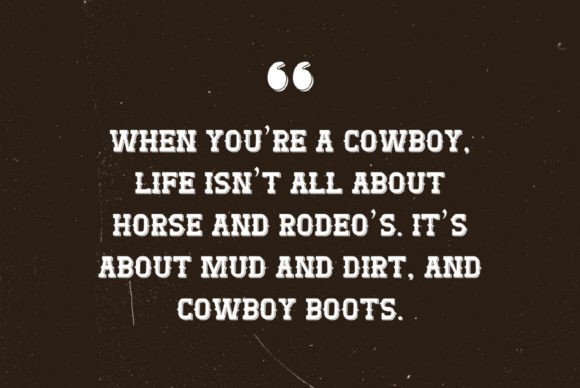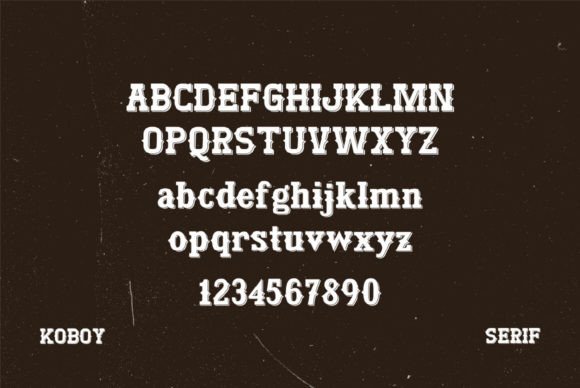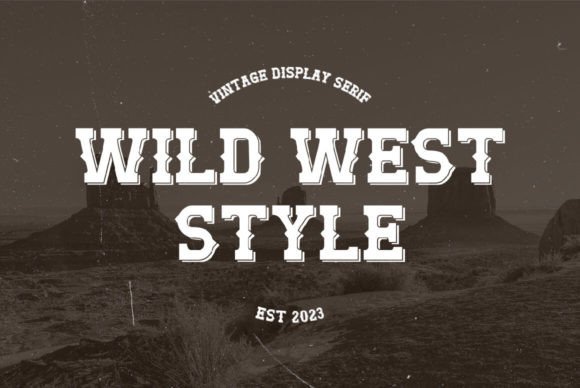
Koboy Font
‘Koboy Font’ is characterized by its bold and strong lined appearance, with letters in cowboy style design. This font is a perfect choice for vintage or old-school themes. You can use this font for many purposes such as vintage logos, mugs, embroidery, prints, displays, short text, packaging, cards, emblems, signage, and many more